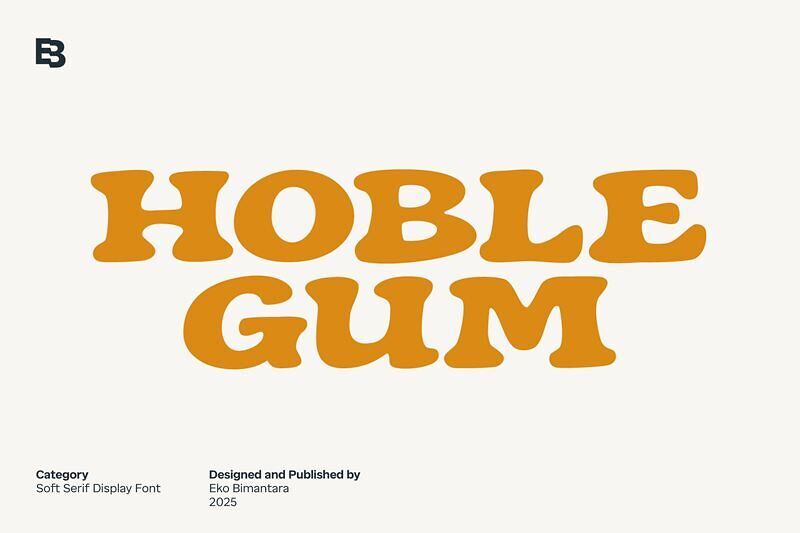
Hoblegum is a groovy display font by Eko Bimantara, featuring bold, rounded letterforms with a playful retro flair. Its bubbly, 1970s-inspired aesthetic makes it ideal for posters, logos, and creative branding. Fully free for personal and commercial use, Hoblegum adds a fun, nostalgic vibe to any project.